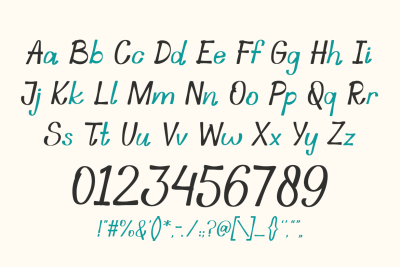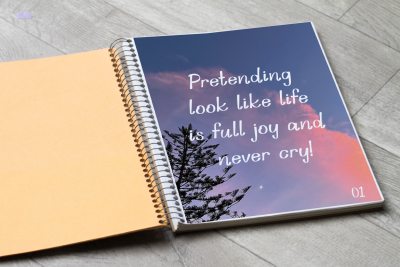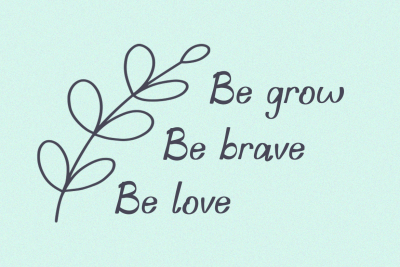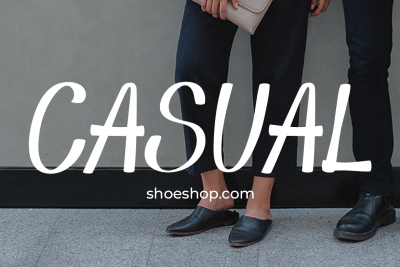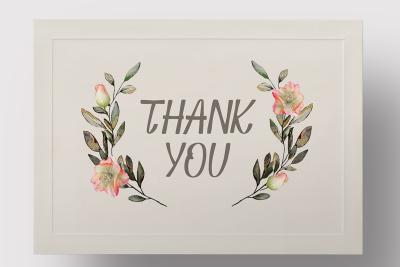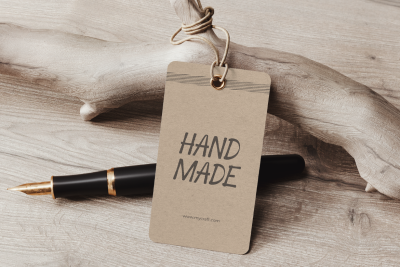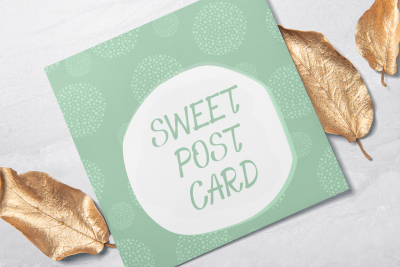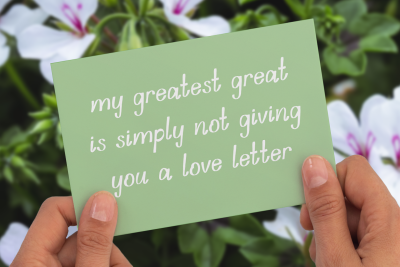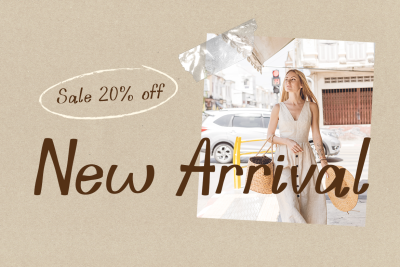
Handwriting Font Woventry is a versatile typeface that adds the charm of handwritten text to your designs. With smooth curves and natural strokes, it delivers a personal and heartfelt touch. Furthermore, this font blends timeless elegance with modern aesthetics, making it suitable for various applications. Whether for wedding invitations, branding, or digital projects, this font isย ensures your designs stand out with authenticity and grace. Its readability and artistic flair captivate audiences while maintaining clarity.
Moreover, each stroke in Handwriting Font Woventry reflects the flow of natural handwriting, bringing authenticity to every project. Its soft yet sophisticated style works for both formal and casual designs. Consequently, this font evokes creativity and warmth, making it ideal for anyone who wants to add a personal touch to their work.
Handwriting Font Woventry Who Is It Suitable For?
Handwriting Font Woventry is perfect for wedding planners and event organizers, as it helps craft elegant invitations, save-the-dates, and event signage with a romantic feel. Additionally, the delicate and fluid strokes match the celebratory mood of special occasions.
For small business owners in creative industries like lifestyle and fashion, this font enhances branding efforts. In particular, its personal touch adds uniqueness to logos, packaging, and marketing materials, helping businesses connect emotionally with their audiences.
Social media managers and content creators can also use this font isย for posts, banners, and stories. Specifically, its stylish yet relatable design is perfect for Instagram quotes, blog headers, and Pinterest pins. Because the fontโs adaptability ensures it captures attention, it conveys the right emotion for every piece of content.
Educators and hobbyists, on the other hand, can add a creative flair to classroom materials or DIY crafts with this font. From handmade cards to scrapbooking, this font is transforms simple projects into memorable creations.
Whether you’re a professional designer or a creative enthusiast, this font is a versatile tool that enhances any project with charm and individuality.